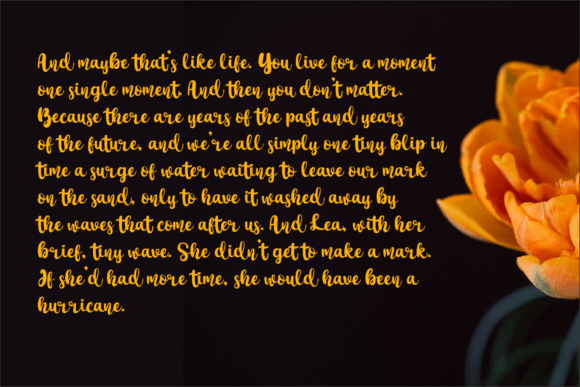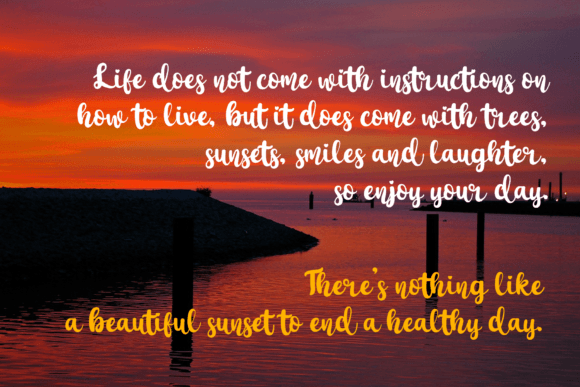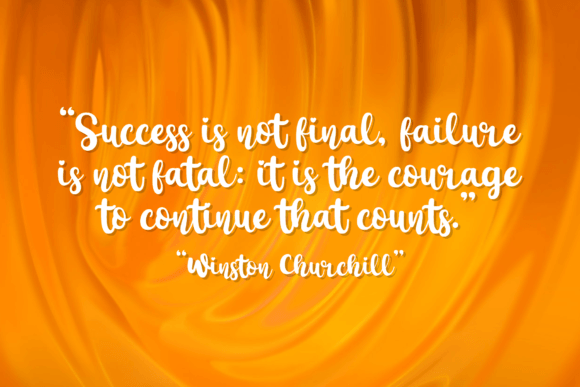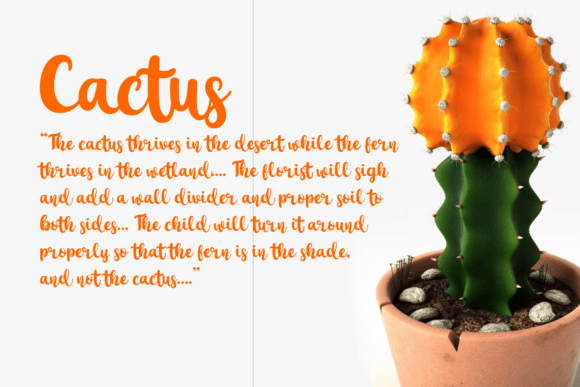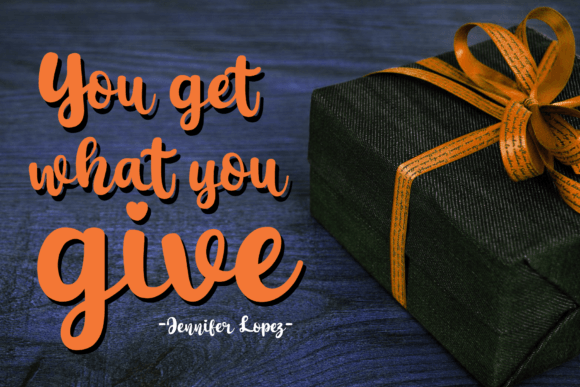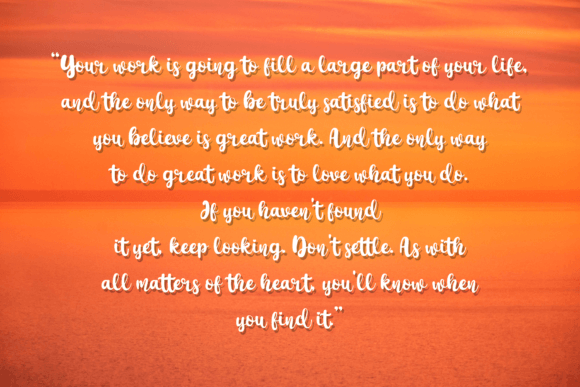
Discover the Elegance of Bestary Font: A Minimalist Script-Type Font
In the world of typography, fonts play a crucial role in conveying the tone and personality of a design. For designers and crafters looking for a sophisticated and luxurious touch, Bestary Font is an excellent choice. This minimalist script-type font is perfect for adding a touch of elegance and creativity to any design project.
What Makes Bestary Font Stand Out?
Bestary Font is a magnificent curved display font that boasts a modern style with a touch of creative ideas. Its lettering is sophisticated, with typical script font features such as loops and exaggerations. However, what sets it apart is its luxurious line, which adds a level of refinement to any design. Whether you’re working on a formal or informal project, Bestary Font is versatile enough to adapt to any style or theme.
Bestary Font is designed to inspire creativity and add a vintage and mystique flavor to any design. It’s perfect for a wide range of projects, including:
- Logo designs
- Headlines
- Music projects
- Social media posts
- Event posters
- Brand imagery
- Product packaging
- Quotes
- Merchandise
With Bestary Font, you can elevate your designs to the next level and create something truly unique and eye-catching.
Why Choose Bestary Font?
By using Bestary Font, you can add a touch of luxury and elegance to your designs. Its modern style and creative flair make it perfect for designers and crafters who want to create something special. Here are just a few reasons why Bestary Font is an excellent choice:
- Versatility: Bestary Font can be used for both formal and informal projects, making it a versatile addition to your font collection.
- Elegance: The font’s luxurious line and sophisticated lettering add a touch of elegance to any design.
- Creativity: Bestary Font’s modern style and creative flair make it perfect for designers and crafters who want to push the boundaries of their designs.
Tips for Using Bestary Font
To get the most out of Bestary Font, here are a few tips to keep in mind:
- Experiment with different sizes: Bestary Font looks great in large and small sizes, so don’t be afraid to experiment and find the perfect size for your design.
- Pair it with other fonts: Bestary Font pairs well with other fonts, so try combining it with other fonts to create a unique and eye-catching design.
- Use it sparingly: While Bestary Font is perfect for adding a touch of elegance to your designs, it’s best to use it sparingly to avoid overwhelming the design.
Bestary Font is a magnificent curved display font that is perfect for designers and crafters looking to add a touch of elegance and creativity to their designs. With its luxurious line, sophisticated lettering, and modern style, it’s an excellent choice for a wide range of projects. Whether you’re working on a formal or informal project, Bestary Font is sure to impress. So why wait? Try Bestary Font today and see the difference it can make in your designs!